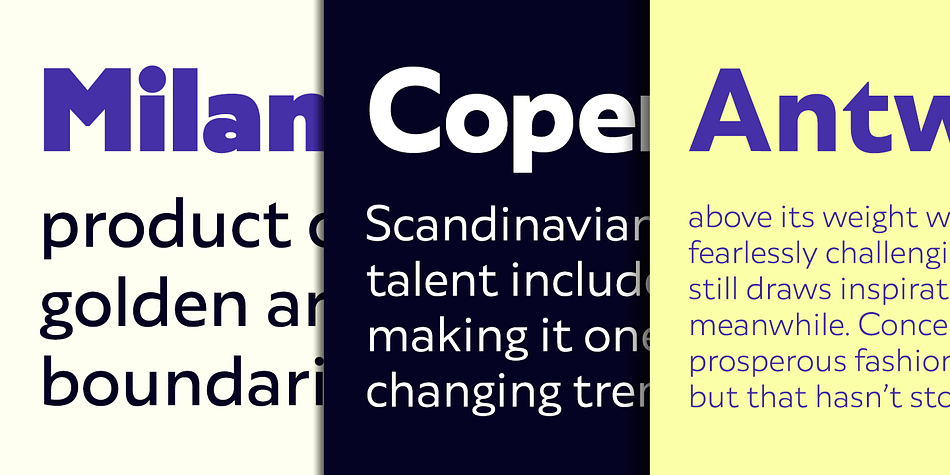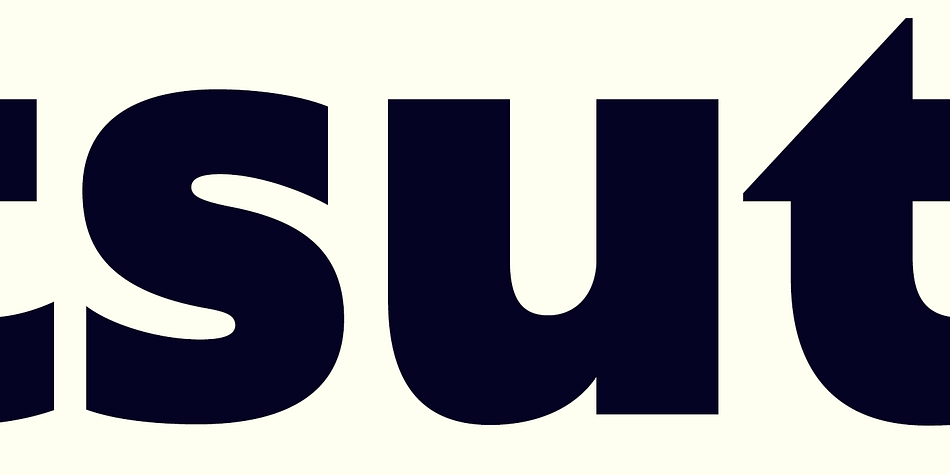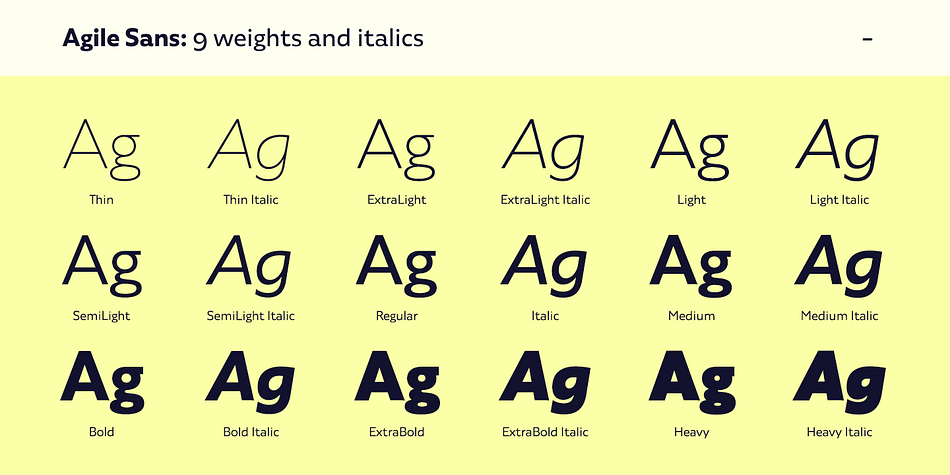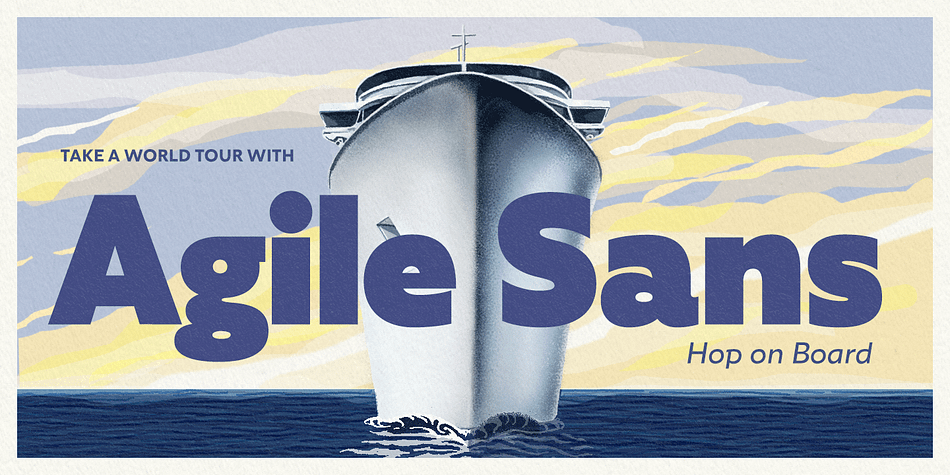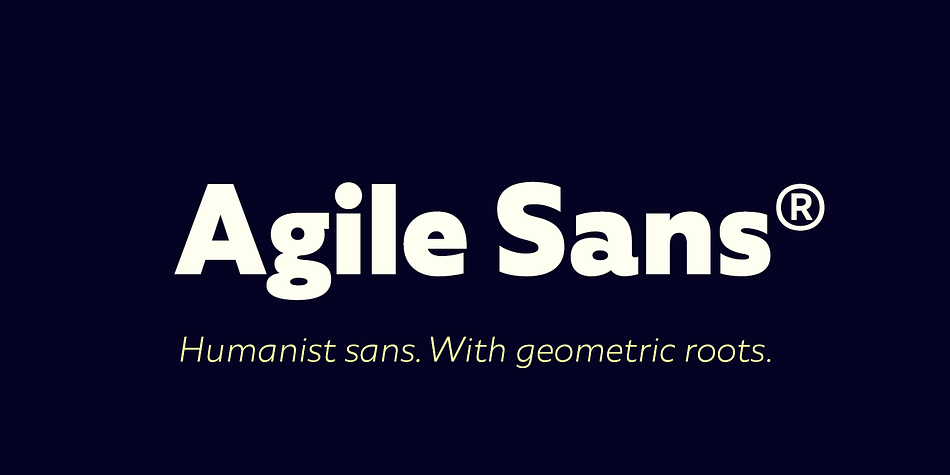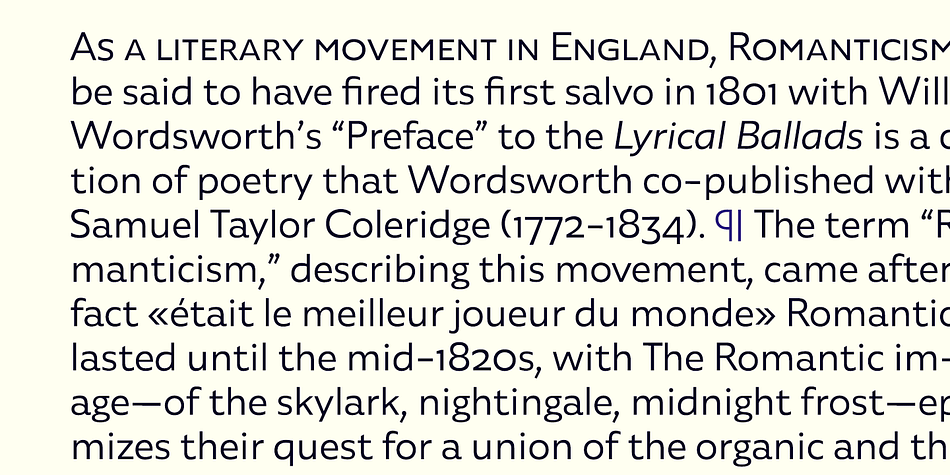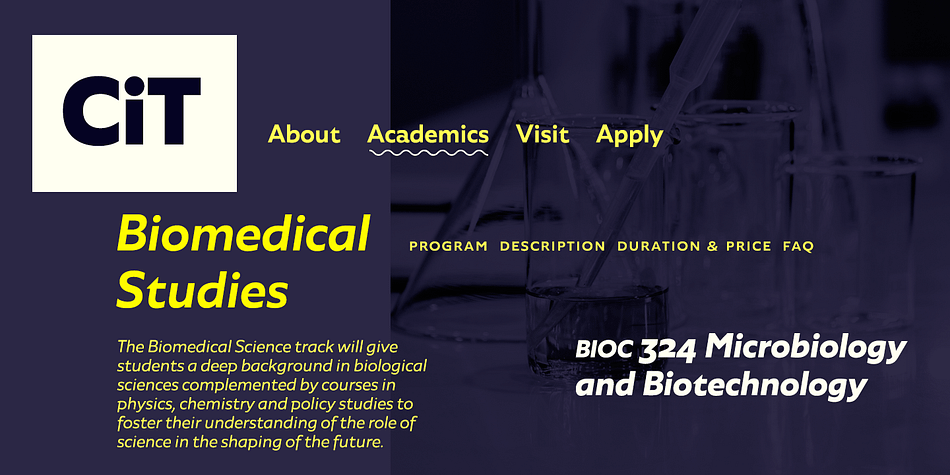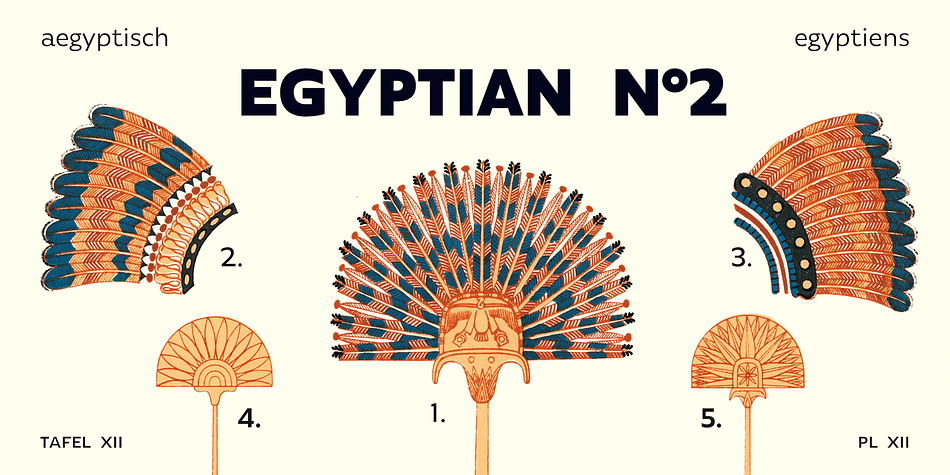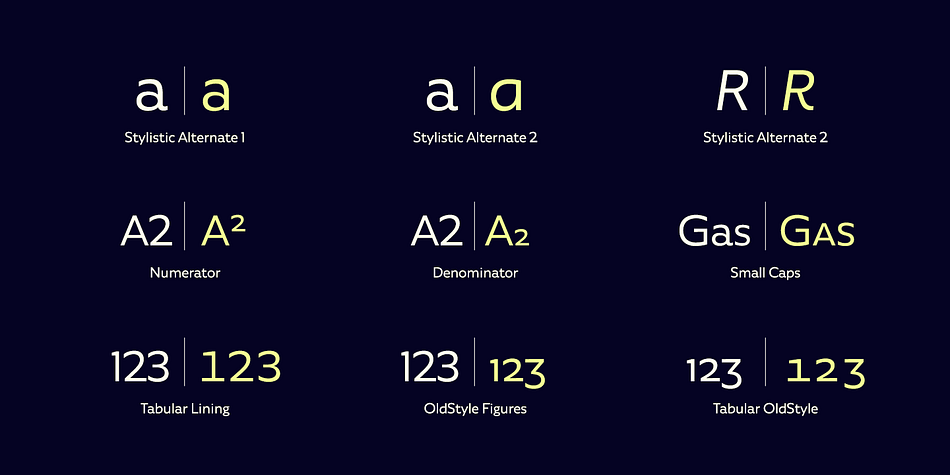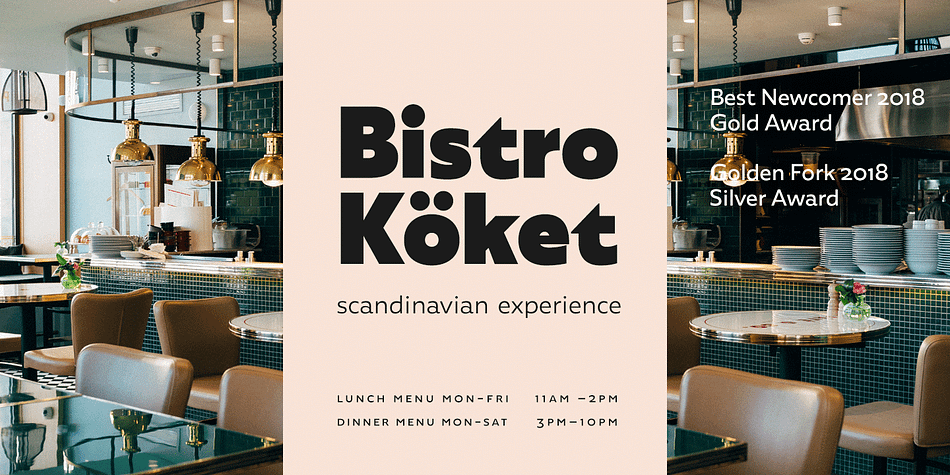
Designed by Erik Bertell, Emil Bertell and Teo Tuominen, Agile Sans is a sans serif font family. This typeface has eighteen styles and was published by Fenotype.
Agile Sans is a contemporary humanist font family with classicist roots. Hence its name, Agile Sans suits many occasions from branding to publications, web and applications. From formal to casual, bold to refined, this font covers it all.
Agile Sans comes with nine weights with corresponding true-italics. Built-in small capitals and several numeral styles are included as well.
If you’re seeking for an alternative to more common humanist sans serifs, look no further and grab a future classic.